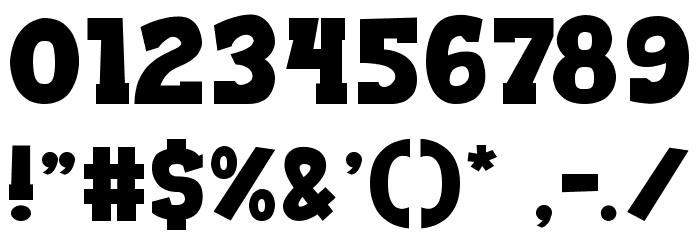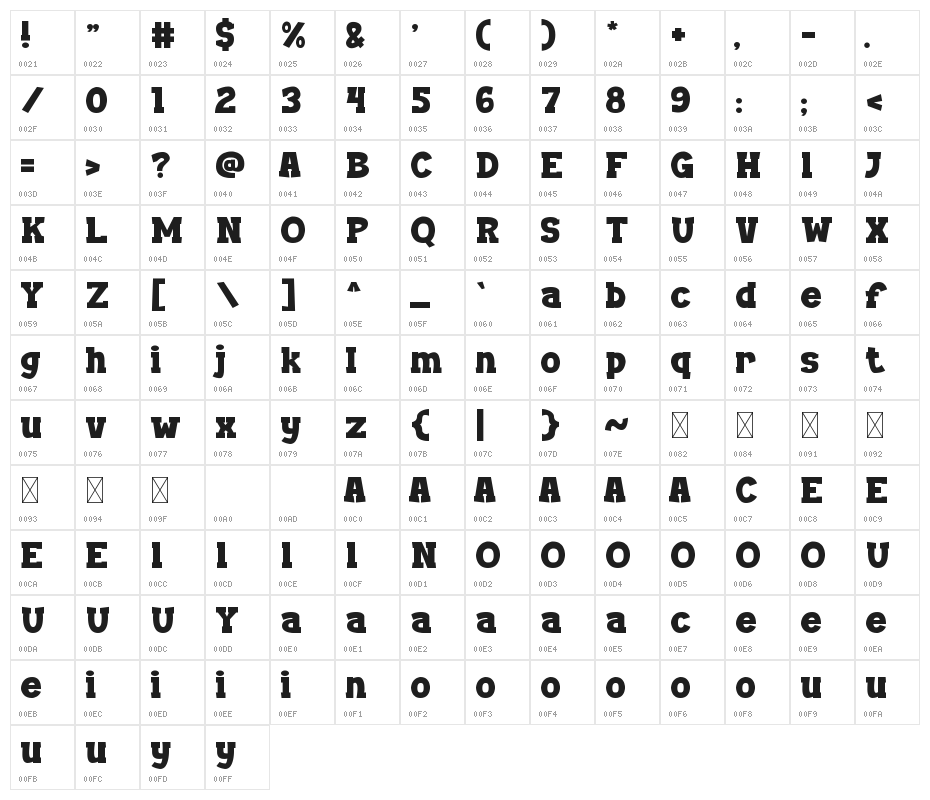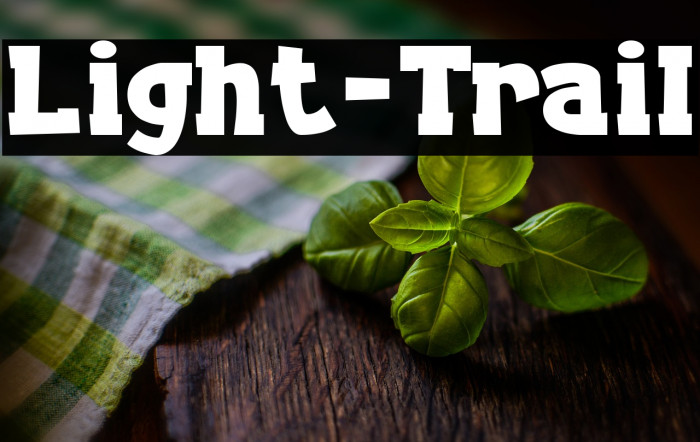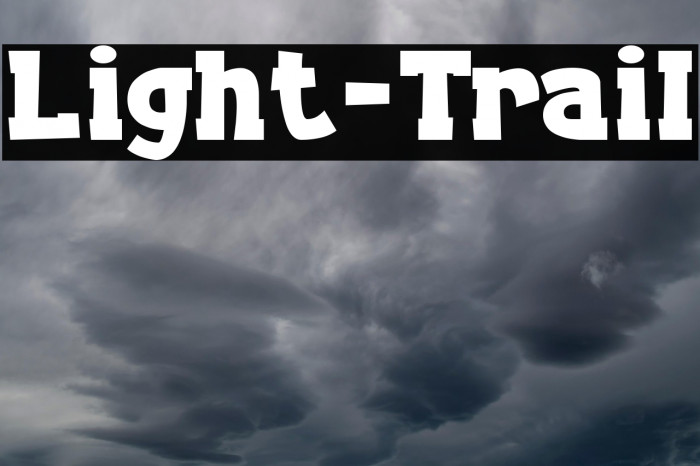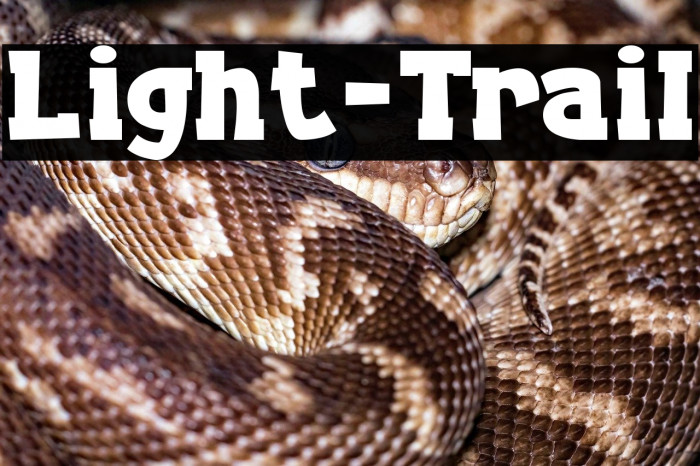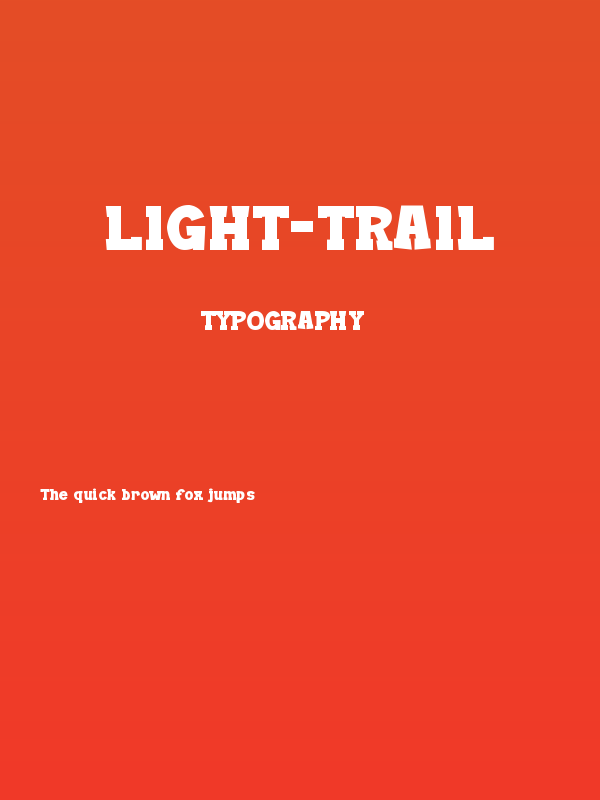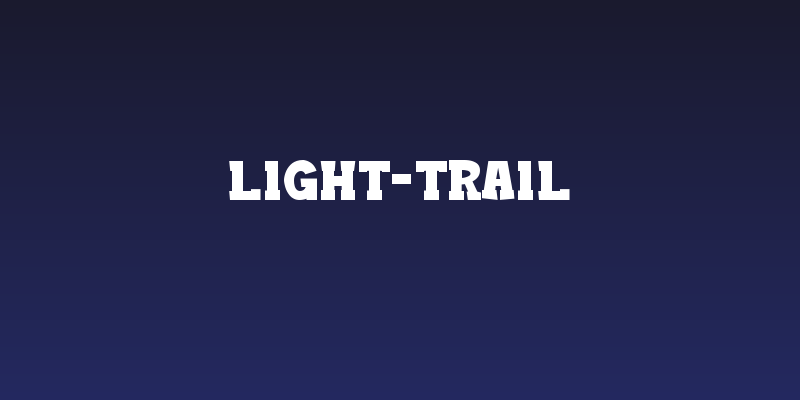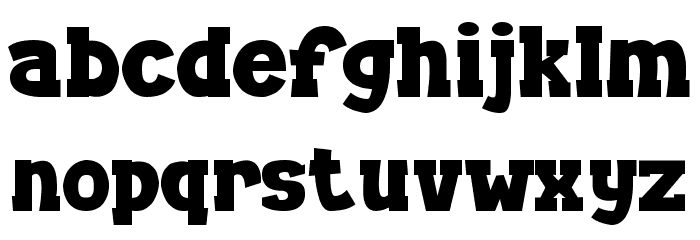
Light-Trail Font
Light-Trail Description
This font features a bold and playful design with a strong presence. The characters are slightly condensed, giving a compact feel while maintaining readability. The strokes are thick and consistent, providing a uniform appearance across all letters and numbers. The style is reminiscent of vintage poster fonts, with a touch of modern flair. The uppercase and lowercase letters are well-balanced, and the numerals are clear and distinct. Special characters are included, adding versatility to the font's use. Overall, this font exudes a sense of fun and creativity, making it suitable for eye-catching designs.
| Overall Style | Vintage, Modern |
| Proposed Projects | Perfect for posters, logos, branding, and any project needing a bold, playful touch. |